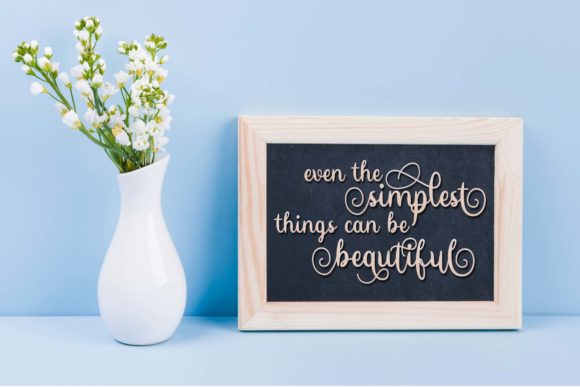
Straighten Font
db-ku.com - Script & Handwritten -- Straighten is a beautiful and sweet calligraphy font. It is fresh, modern, and elegant. This font will look amazing in a great amount of projects, from wedding invitations and greeting card to social media quotes, branding and more! This font is PUA encoded which means you can access all of the glyphs and swashes with ease!